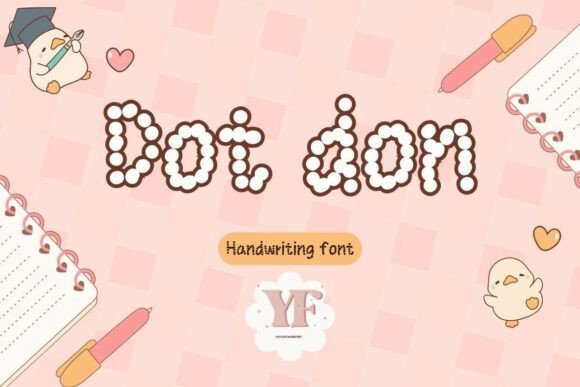
Unleashing the Playful Rhythm of Hand-Drawn Lettering
Who hasn’t doodled in the margins of a notebook or created whimsical patterns with dots and lines? For designers, those carefree moments of creative expression can be a source of inspiration. The Dot Don Font is a perfect embodiment of that playful spirit, bringing a unique twist to traditional handwriting typography.
This charming font is designed to evoke the natural rhythm of hand-drawn lettering, with soft, friendly strokes and a distinctive dotted style. Whether you’re crafting branding materials, designing invitations, or creating social media graphics, Dot Don Font adds a personal and warm touch to your work. Its creative yet simple design makes it an invaluable asset for designers looking to inject a dash of personality into their projects.
Dot Don Font Key Features
- Unique Characteristics: Unique dot patterns and geometric shapes create a distinctive aesthetic
- Font Styles: Includes regular, bold, italic, and bold italic styles for versatility
Dot Don Font Review
I recently had the chance to work with Dot Don Font, and I have to say, it’s a unique and quirky addition to any design project. ✨ One of the things I appreciate most about this font is its playful, handwritten feel, which adds a touch of personality to any text. The subtle variations in letterforms and connections between letters give it a sense of movement and energy.
Another aspect that I think works well is its versatility. ✨ Dot Don Font comes in multiple weights and styles, making it easy to adapt to different design contexts, from logos and headings to body text and captions.
- ⚠️ Readability: While Dot Don Font is great for headings and display text, it can be a bit challenging to read in smaller sizes or at a distance.
- ⚠️ Consistency: The font’s handwritten feel can sometimes lead to inconsistencies in letter spacing and alignment, which may require some manual adjustments.
Overall, I think Dot Don Font is a great addition to any designer’s toolkit, especially for projects that require a touch of whimsy and personality. While it may have some limitations, its unique charm and versatility make it a valuable asset for any design project.
Getting the Most Out of Dot Don Font
Dot Don Font is ideal for:
- Casual, creative projects.
- Emphasizing key points or headings.
- Creating a playful, youthful aesthetic.
Experiment with different font sizes, colors, and styles to achieve the desired effect.
Dot Don Font is commonly used:
- In social media graphics and ads.
- In blog posts and articles.
- In marketing materials and flyers.
What is the character set for the Dot Don Font?
The Dot Don Font includes a comprehensive character set that covers a wide range of languages, including Latin, Cyrillic, and Greek scripts. The font also includes a range of special characters, including punctuation marks, symbols, and dingbats. This makes it a versatile choice for designers working on projects that require a wide range of languages and characters.